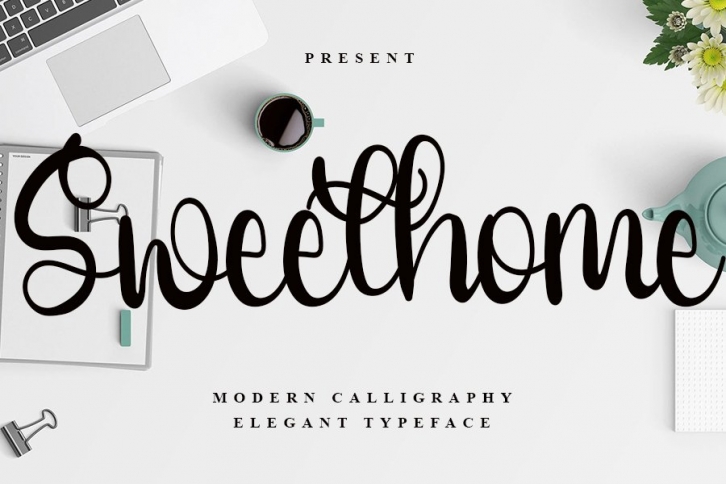
Sweethome is a beautiful font that was designed by InermediaSTUDIO. It's a great choice for designers and creatives who need such a font. It was released on May 27, 2021 and the file size is 13.90 MB. Sweethome may give a more youthful, expressive and casual look to your project. It is a very beautiful, refined, elegant, and high-quality font.